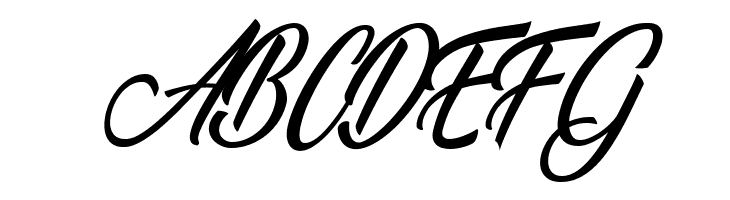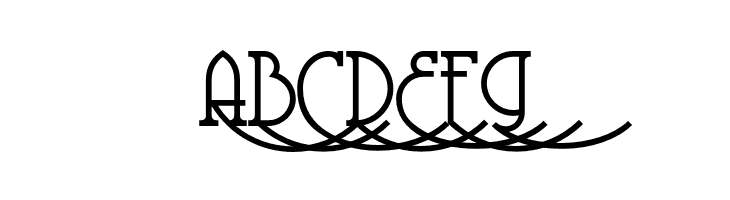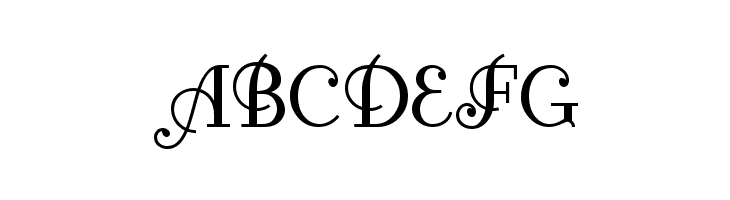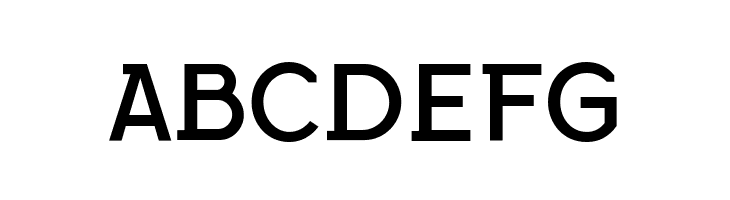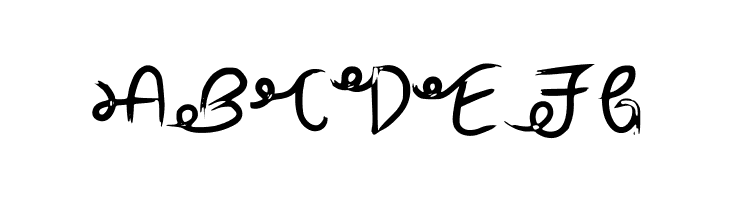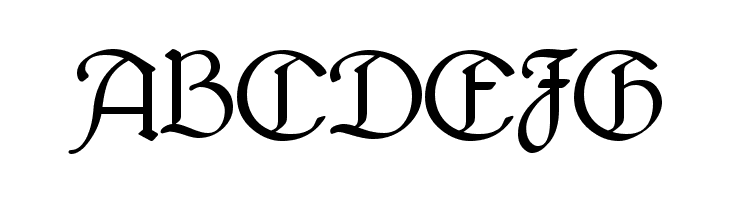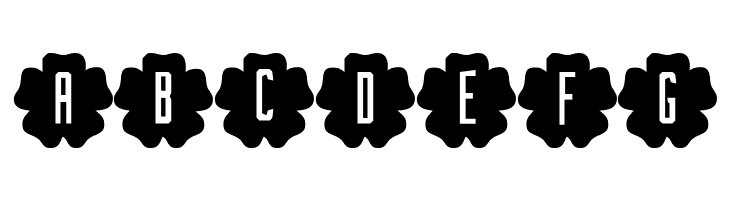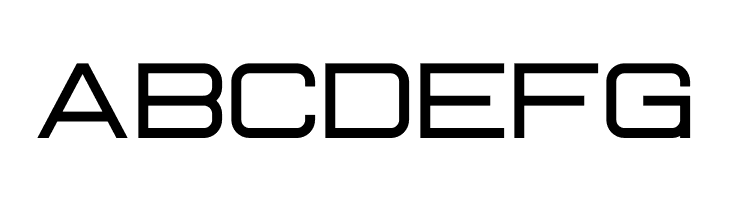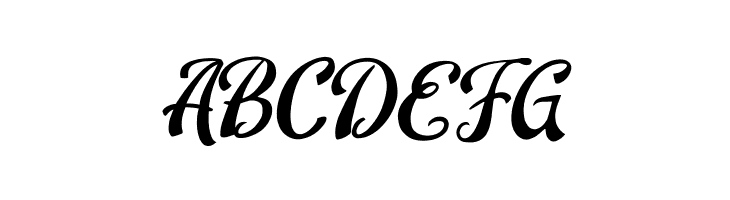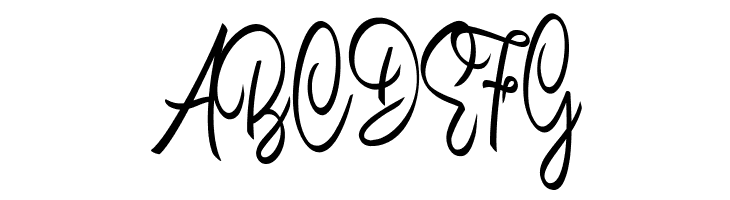
A flowing, cursive font with elegant, sweeping lines and ornate uppercase letters.
A bold, elegant script font with flowing, cursive letters and ornate uppercase characters.
An elegant, flowing script font with ornate uppercase and smooth lowercase letters.
An ornate and elegant serif font with decorative uppercase letters.
An elegant, decorative font with ornate uppercase and stylish lowercase letters.
A semi-slab serif font with a modern and classic blend, offering bold uppercase and balanced lowercase characters.
A whimsical and decorative font with playful, ornate uppercase letters and casual lowercase characters.
A decorative and artistic font with graffiti-like uppercase and cursive lowercase letters.
A decorative font with ornate uppercase and elegant lowercase letters, blending traditional and modern styles.
A decorative and elegant font with vintage flair, featuring intricate uppercase letters and bold numerals.
A modern, half-black, half-white geometric font with bold uppercase and consistent lowercase letters.
A bold, decorative font with floral motifs encasing each uppercase letter.
A geometric, monospaced font with bold, decorative uppercase letters and clean lowercase characters.
Bold, uppercase font with circular outlines for a modern, geometric look.
A decorative font with intricate, textured patterns in uppercase letters.
A bold, distressed font with uppercase letters in black squares, featuring a grunge texture.
A whimsical script font with tall, narrow uppercase and flowing cursive lowercase letters.
A festive typeface with Christmas-themed decorations in uppercase letters.